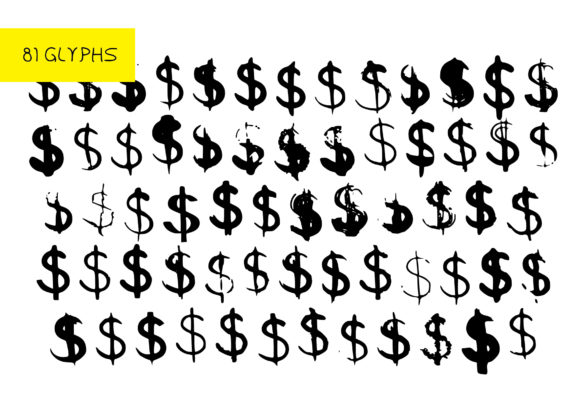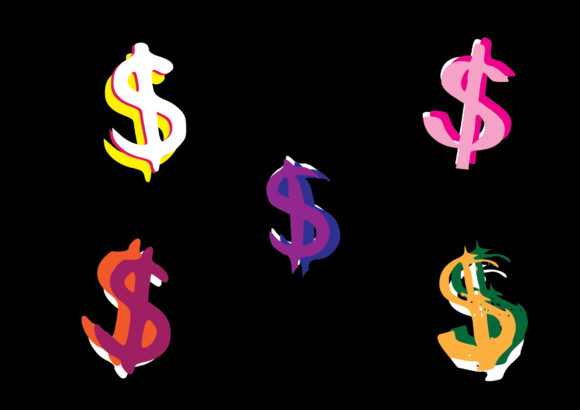
BM Graphics – Dollar Symbols Font: Elevate Your Designs with a Personalized Touch
Are you tired of using the same old fonts for your design projects? Do you want to add a touch of personality and uniqueness to your creations? Look no further than the BM Graphics – Dollar Symbols Font. This stunning dingbats font is packed with 81 glyphs, offering a wide range of possibilities for designers and crafters alike.
What is Dollar Symbols Font?
Dollar Symbols Font is a dingbats font designed by BM Graphics, a renowned font foundry known for its high-quality typography. This font is specifically designed to add a touch of elegance and sophistication to your designs. With its unique set of 81 glyphs, you can create stunning visual elements that will make your projects stand out from the crowd.
Key Features of Dollar Symbols Font
• 81 Glyphs: This font comes with an impressive set of 81 glyphs, including dollar signs, symbols, and other decorative elements.
• Dingbats Font: Dollar Symbols Font is a dingbats font, which means it’s perfect for creating decorative text and visual elements.
• Personalized Appearance: With its unique set of glyphs, you can create designs that reflect your personality and style.
• High-Quality Typography: BM Graphics is known for its high-quality typography, ensuring that Dollar Symbols Font is both legible and visually appealing.
Uses of Dollar Symbols Font
Dollar Symbols Font is versatile and can be used for a wide range of design projects, including:
• Branding and Logo Design: Create unique logos and brand identities with the help of Dollar Symbols Font.
• Graphic Design: Use this font to create stunning visual elements, such as brochures, flyers, and posters.
• Crafting and Scrapbooking: Add a touch of personality to your scrapbooking and crafting projects with Dollar Symbols Font.
• Web Design: Use this font to create visually appealing website headers, titles, and other design elements.
Benefits of Using Dollar Symbols Font
By using Dollar Symbols Font, you can:
• Stand Out from the Crowd: With its unique set of glyphs, you can create designs that are truly one-of-a-kind.
• Enhance Your Brand: Use Dollar Symbols Font to create a consistent brand identity that reflects your personality and style.
Tips for Using Dollar Symbols Font
Here are some tips to help you get the most out of Dollar Symbols Font:
• Experiment with Different Glyphs: Try out different glyphs to create unique and visually appealing designs.
• Mix and Match: Combine Dollar Symbols Font with other fonts to create stunning visual elements.
BM Graphics – Dollar Symbols Font is a stunning dingbats font that offers a wide range of possibilities for designers and crafters. With its unique set of 81 glyphs, you can create designs that are truly one-of-a-kind. Whether you’re looking to add a touch of elegance to your branding, create stunning visual elements, or enhance your craft projects, Dollar Symbols Font is the perfect choice.